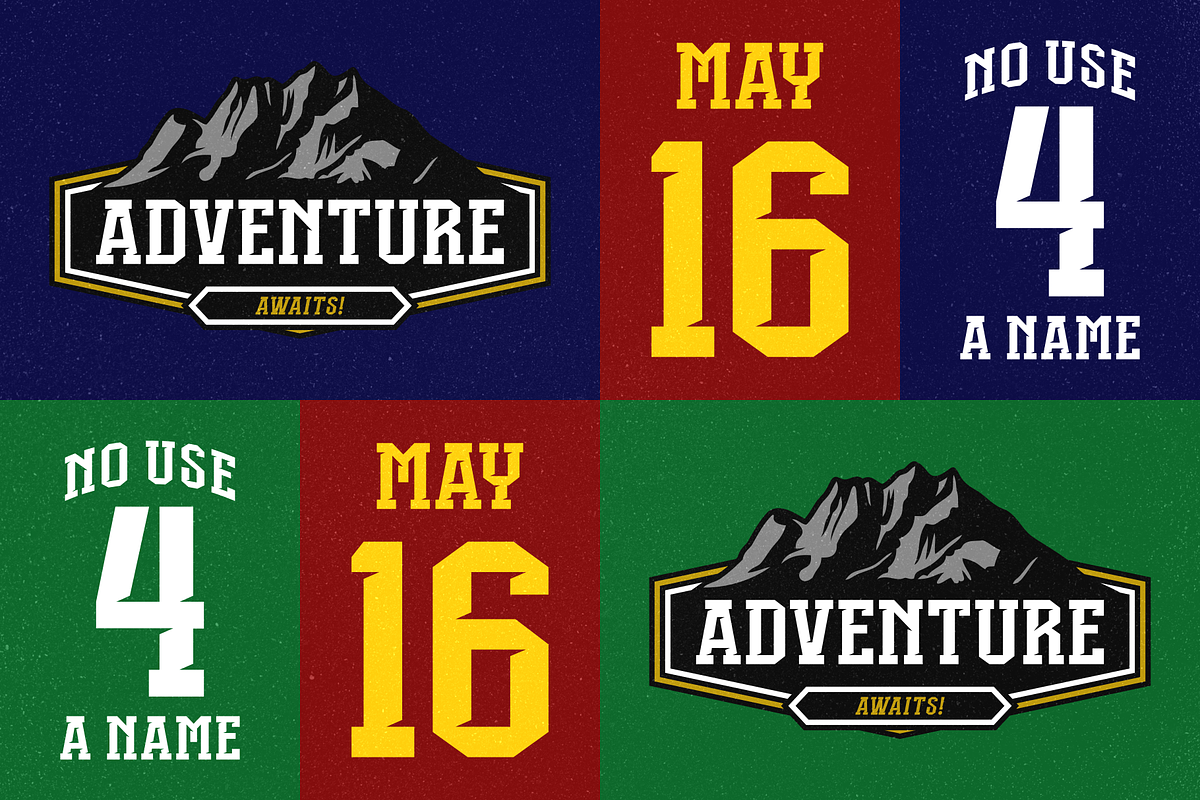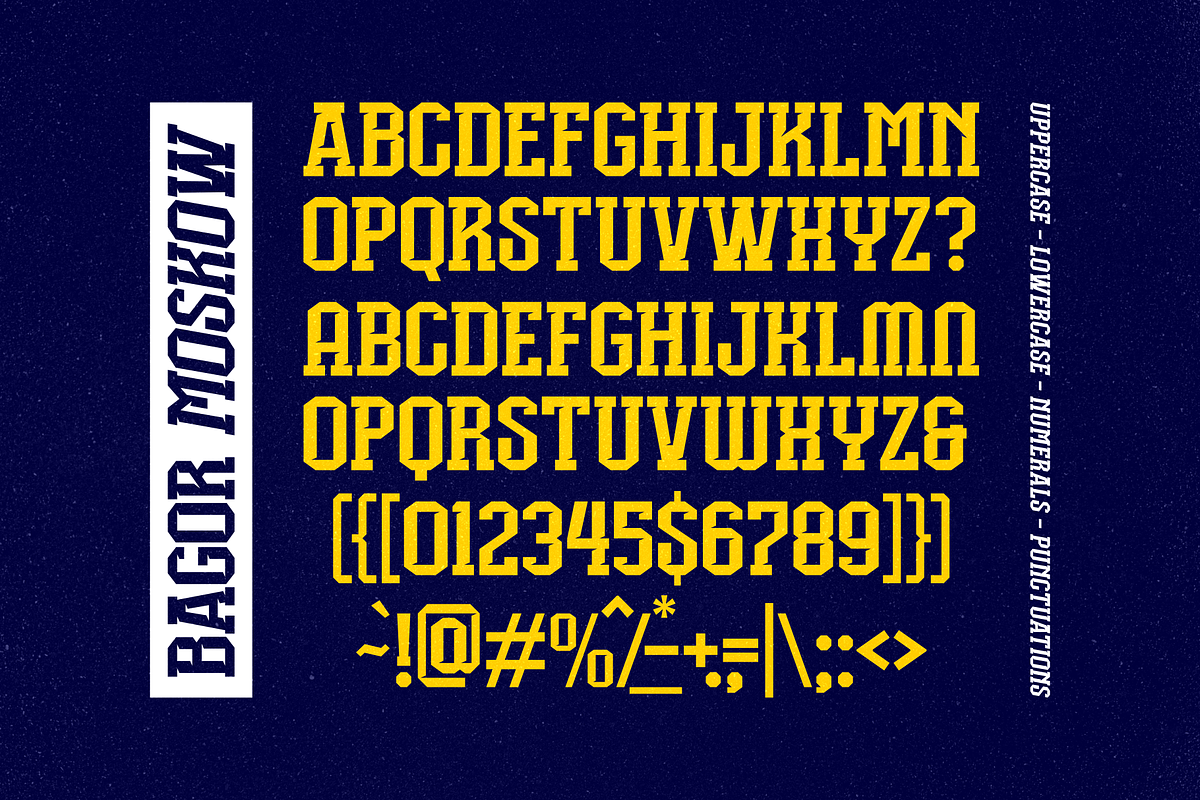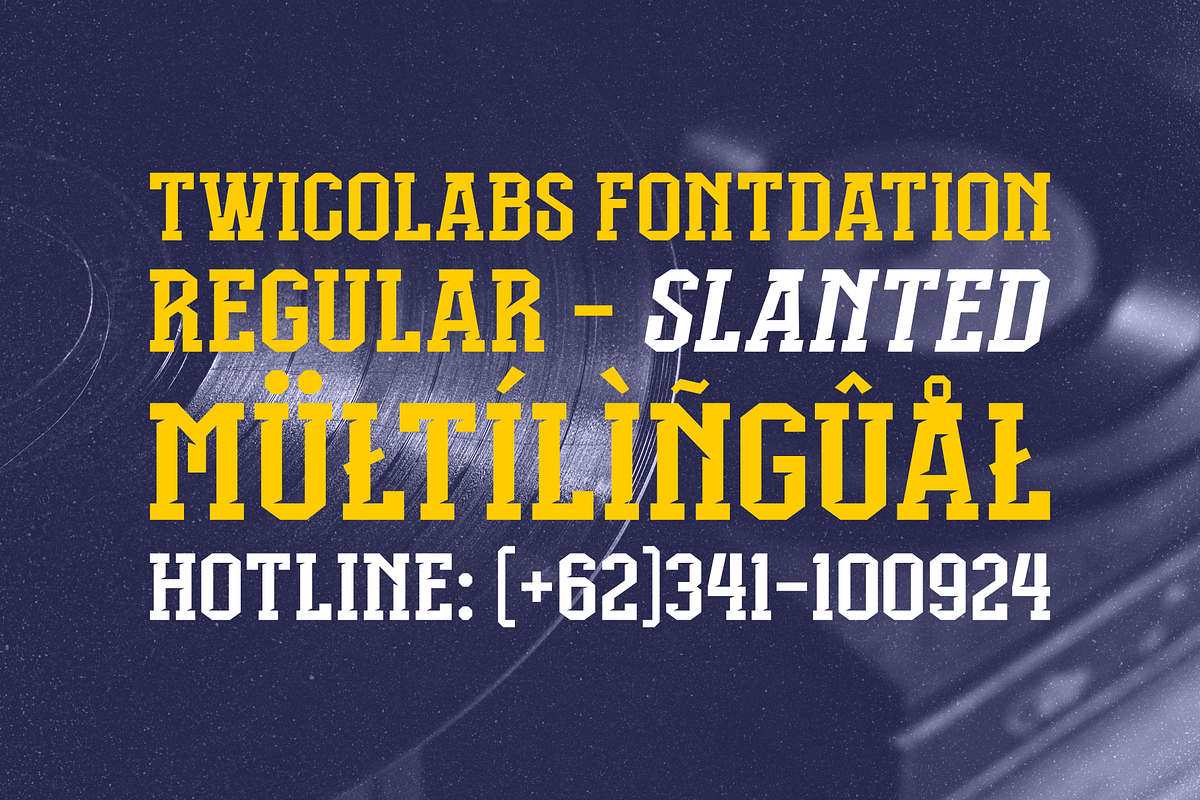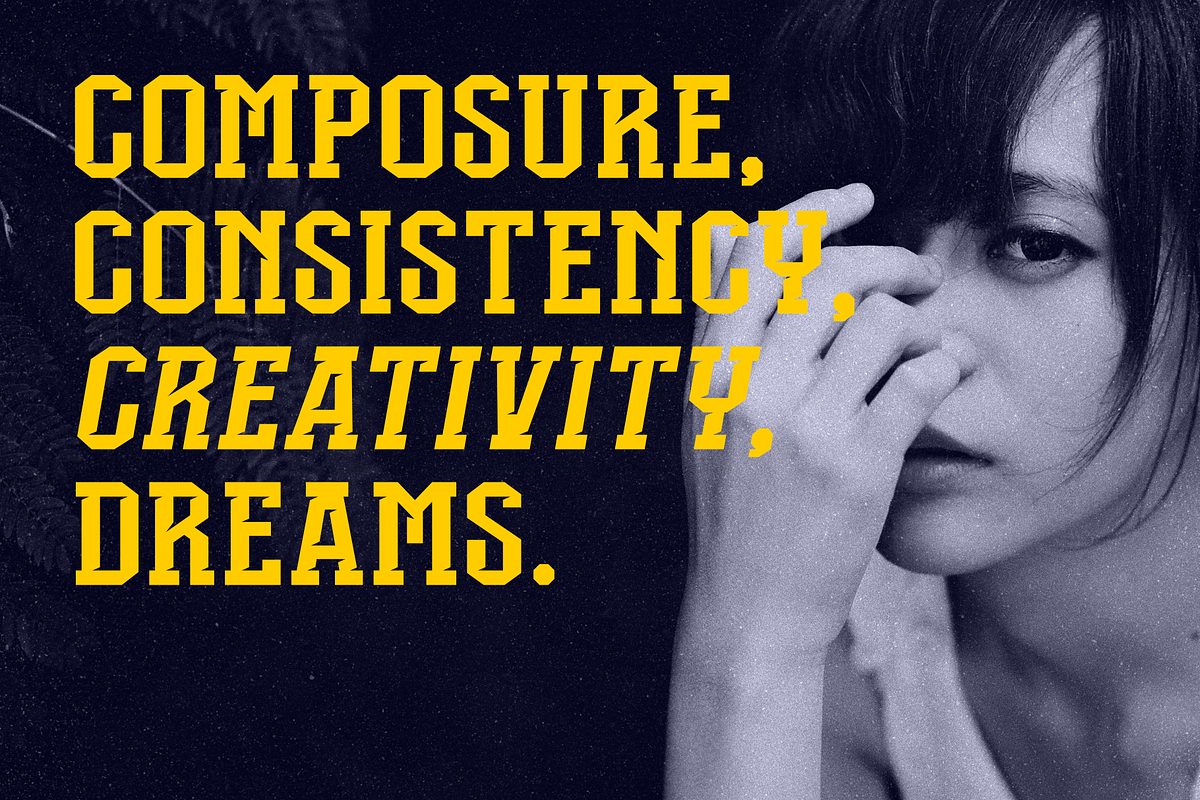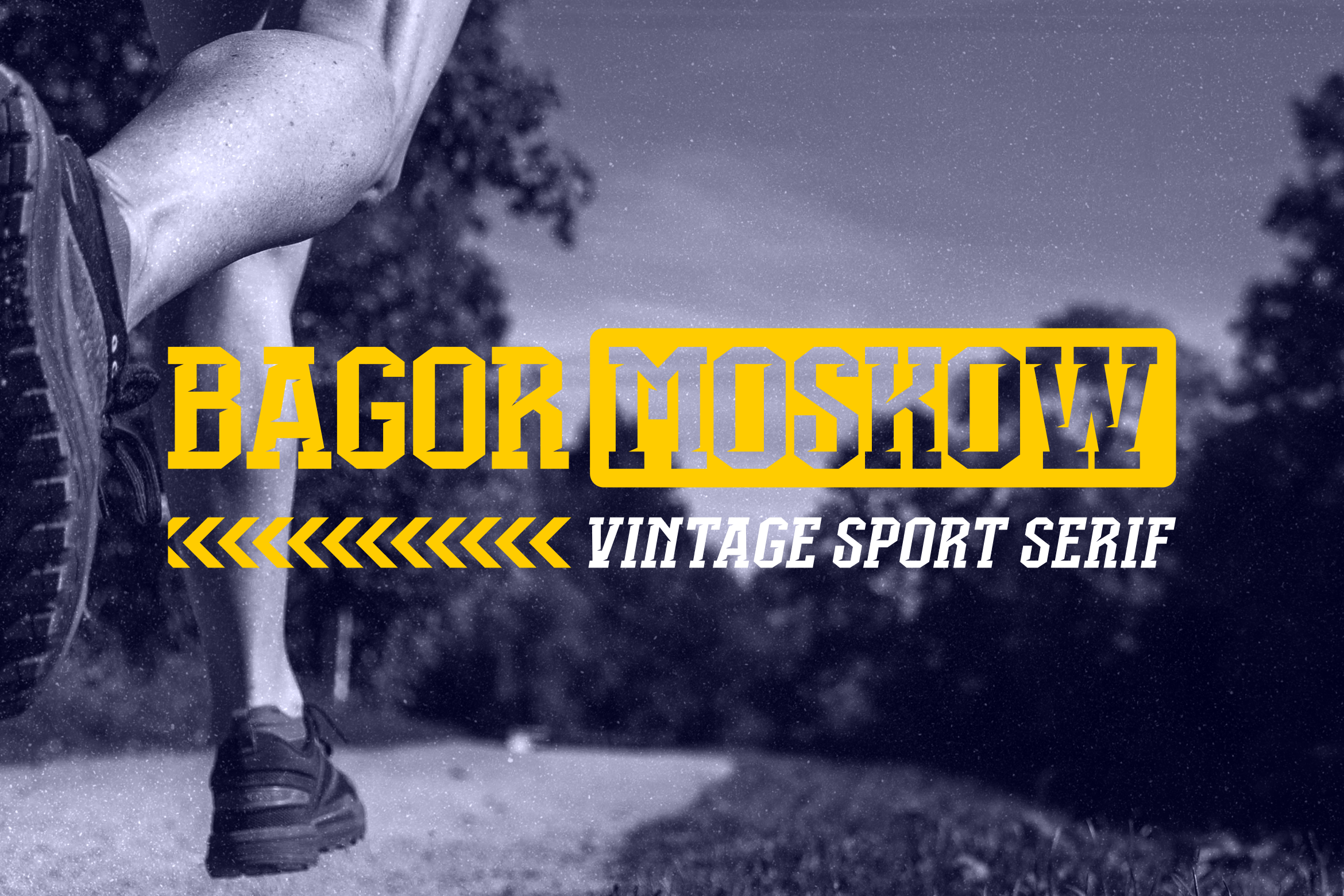
Bagor Moskow | Sport Font
Introducing Bagor Moskow, an all caps blocky font, inspired by the classic letters that are used in sport’s jersey/apparel. We made it relevant with today’s trend by adding some small details. Suits best for logo/branding, sports jersey/apparel, headline, posters, etc.
- Available in Regular and Italic